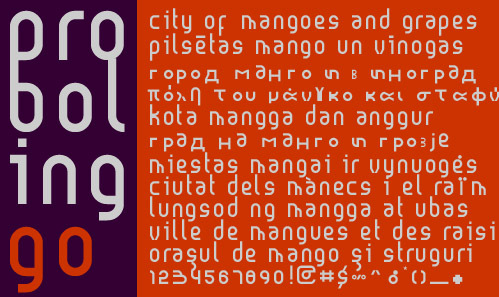
Probolinggo by Adien Gunarta is a free geometric sans serif with broad, evenly weighted forms. Its squared curves and clipped joins give the letters a compact, engineered look. Several characters have unusual open breaks.
Packaging gives this design an especially convincing setting, particularly for technology products and contemporary food labels. The same clean geometry suits event posters and digital graphics, where the broken strokes can become a recognizable part of a brand identity.
The font includes Latin, Greek, Coptic, and Cyrillic characters.